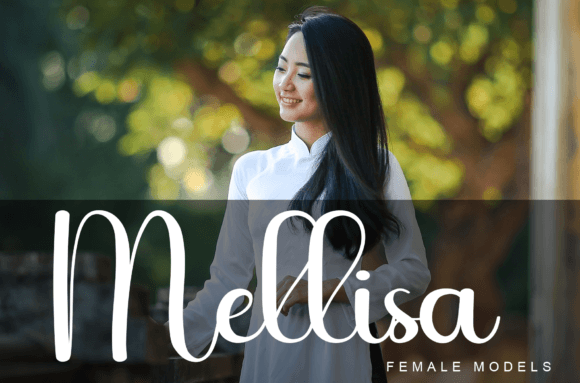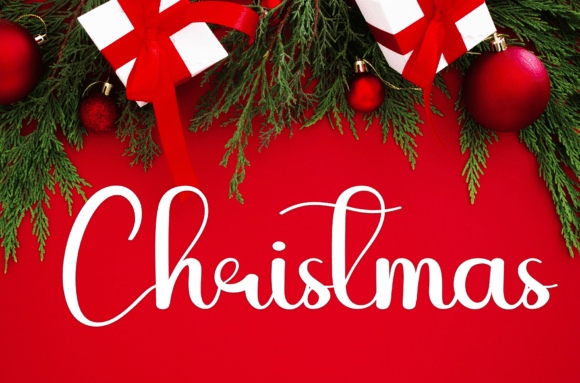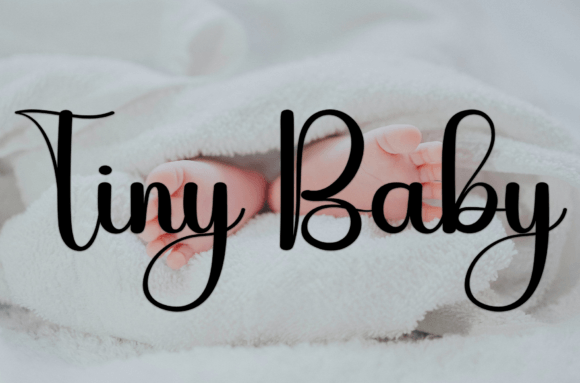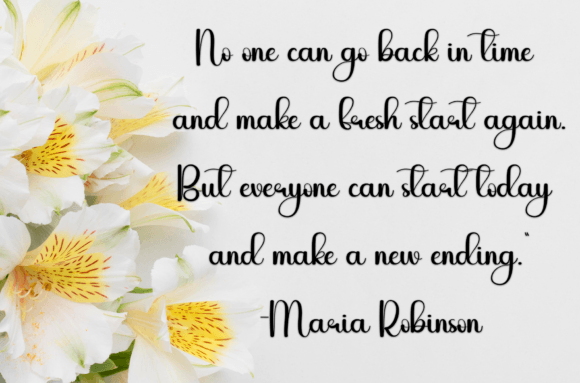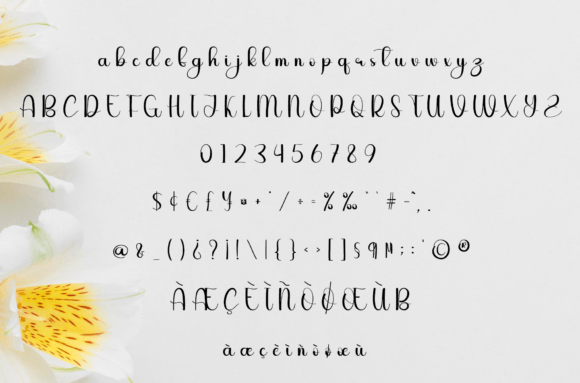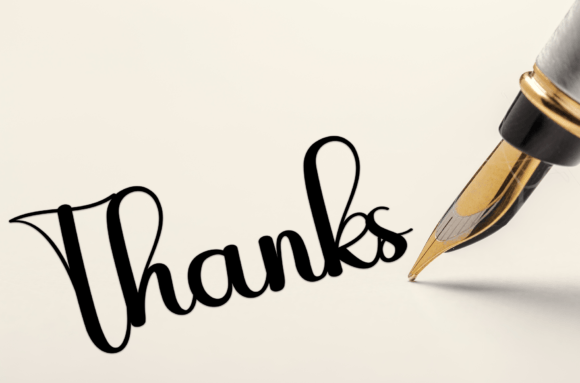
Rose Pink Font
A Delightful and Charming Handwritten Typeface
Rose Pink Font is a delightful and charming handwritten script that adds a sweet and friendly touch to your designs. With its playful style and relaxed character, this font is perfect for a variety of projects, particularly those requiring a touch of warmth and elegance.
Perfect for Wedding Invitations
When designing wedding invitations, Rose Pink Font brings a romantic and intimate feel. The font’s handwritten appearance adds a sense of personalization and whimsy to your invitations, setting the stage for a beautiful and memorable wedding celebration. Your invitations will stand out with their sweet and friendly vibe, making them truly special.
Great for Greeting Cards
For greeting cards, Rose Pink Font makes designs even more heartfelt and endearing. Whether it’s a greeting card, thank you note, or any other occasion, the font’s charming and relaxed letterforms convey a sense of warmth and joy. Rose Pink adds a touch of playfulness and elegance, ensuring the recipient feels cherished and appreciated.
Ideal for Branding Materials
In addition to wedding invitations and cards, Rose Pink Font is also well-suited for branding materials like logos and business cards. Whether you’re creating a logo or business cards, the font’s friendly and approachable style creates a warm, inviting impression. It also adds a lovely touch to quotes, posters, social media graphics, and more, infusing your messages with sweet and inviting charm.
Versatile and Easy to Use
Rose Pink Font is not just beautiful—it’s also versatile and easy to use. Whether you’re working on wedding invitations, greeting cards, branding materials, or other projects, this font adds a touch of warmth and elegance to your designs. Its playful and relaxed vibe ensures that your designs are both stylish and inviting.
Add Warmth and Elegance to Your Designs with Rose Pink Font
In summary, Rose Pink Font is a sweet and friendly handwritten typeface that brings a playful and relaxed vibe to your designs. Whether you’re designing wedding invitations, cards, branding materials, or other projects, Rose Pink Font adds a touch of warmth and elegance. Let Rose Pink grace your designs and create an atmosphere of joy and beauty for your audience.